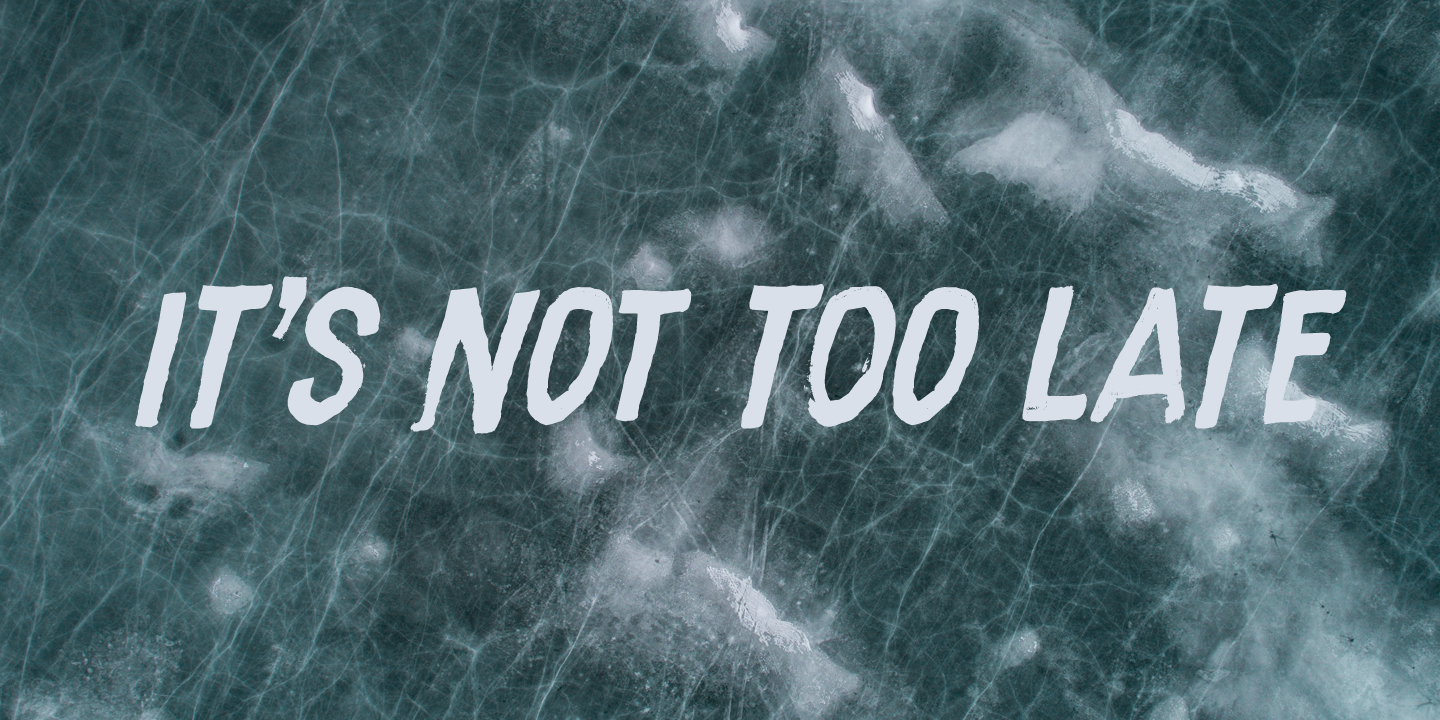
Ramkoers Font is perfect for racing team branding, motorsport advertising, speed-focused logos, automotive companies, competitive sports marketing, dynamic action graphics, adrenaline-fueled campaigns, racing event promotions, and high-velocity communications. This dynamic typeface brings racing speed and competitive energy to projects requiring fast-paced typography with athletic appeal and motorsport authenticity.
What makes Ramkoers Font exciting is its racing velocity that embodies the thrilling rush of competitive motorsports and high-speed competition with remarkable energy and adrenaline-pumping excitement that captures the essence of racing excellence. The font features streamlined letterforms with aerodynamic styling and speed-inspired character that reflects the precision of racing engineering and competitive determination. Its dynamic personality and competitive spirit make it irresistible for motorsport brands seeking typography that communicates speed while celebrating the exhilarating world of racing competition and athletic achievement.
The Ramkoers Font family includes racing weights and competitive styles: Light, Regular, Medium, Bold, and speed variations with racing alternates and motorsport symbols. Each weight maintains the font's dynamic character while offering designers complete flexibility for racing branding and competitive design applications requiring authentic motorsport atmosphere and high-speed visual presentation.
Whether you're designing for racing teams or automotive brands, Ramkoers Font Free Download provides designers with a fast, competition-focused typeface solution. The font's racing aesthetics and dynamic styling make it ideal for motorsport organizations, racing events, automotive manufacturers, and competitive sports companies. Its energetic presence ensures your message communicates speed and competition while maintaining excellent racing readability. The comprehensive character set includes motorsport symbols and racing decorations, making it perfect for creating thrilling headlines and brand identities that celebrate competitive excellence and establish memorable connections with audiences seeking authentic racing experiences and high-performance automotive adventures.